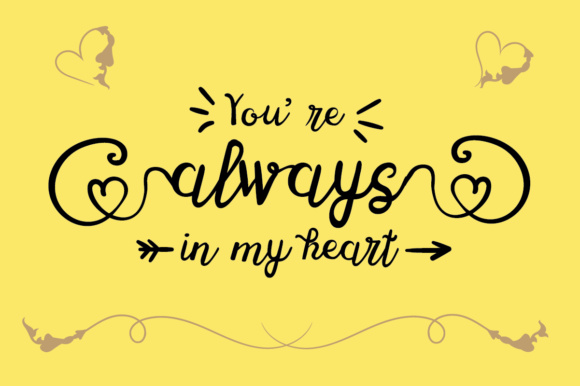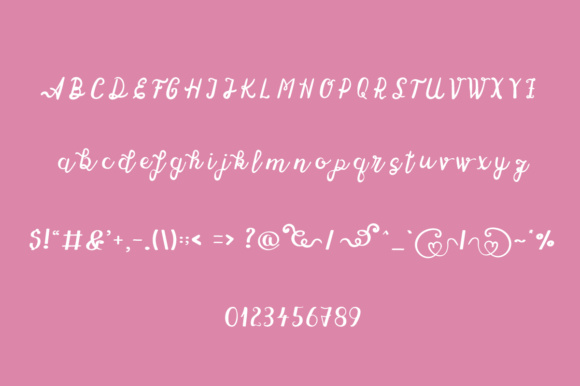
Introduction to Lovely Lines Font
Do you remember the moment when you first stumbled upon the perfect font for your creative project? The one that brings your design to life and makes you feel like you’ve hit the jackpot? For many designers, this moment is a rare and precious thing, but it’s exactly what makes Lovely Lines Font so special.
This stunning hand-drawn display font is more than just a pretty face – it’s a versatile design resource that’s perfect for adding a touch of whimsy to your next project. With its playful initial and terminal swashes, Lovely Lines Font is sure to elevate your designs and leave a lasting impression on your audience. And the best part? It’s available for free download, making it a valuable addition to any designer’s toolkit.
Whether you’re working on a high-quality branding project or just need a fun font to spice up your social media graphics, Lovely Lines Font is the perfect choice. Its transparent background makes it easy to work with, and its high-quality design ensures that it will look great on any platform.
Key Features of Lovely Lines Font
- High-quality design resource perfect for creative projects, offering a unique and elegant aesthetic.
- Unique characteristic: Delicate line art design with subtle texture, adding an extra layer of depth to your creative project.
Honest Review: Lovely Lines Font
I recently stumbled upon the Lovely Lines Font while searching for free downloads for my latest creative project. I was immediately drawn to its unique, hand-drawn style and high quality design.
Here are some aspects that really stood out to me:
- ✨ The font’s transparent background makes it easy to use on a variety of backgrounds and design elements.
- ✨ The high quality design ensures that the font looks great at any size, whether it’s for a title or body text.
- ✨ The font’s versatility makes it a great resource for a wide range of creative projects, from logos to brochures.
- ⚠️ The font’s limited character set may be a problem for some users who need to type out long passages of text.
- ⚠️ The font’s uniqueness may not be for everyone – some users may find it too quirky or distracting.
Overall, I was really impressed with the Lovely Lines Font and would definitely recommend it to anyone looking for a high quality, unique design resource.
Use Lovely Lines Font to add a touch of sophistication to your wedding invitations, greeting cards, or any other creative project that requires a high-quality design resource.
Experiment with different font sizes and styles to create a unique and eye-catching design.
Lovely Lines Font is perfect for:
Greeting cards and party invitations
Brand logos and marketing materials
Any creative project that requires a high-quality design resource